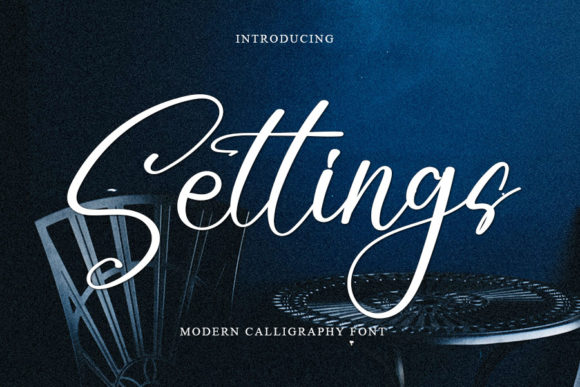
Unlock the Enchanting Embrace of Settings Font: Your Gateway to Refined Elegance in Design!
Prepare to be captivated by the allure of Settings, an exquisite script font meticulously crafted to evoke a symphony of grace and sophistication. As a connoisseur of typographic artistry, we understand the profound impact that fonts can have on your creative endeavors.
With Settings, we present you with an unparalleled masterpiece, a font that effortlessly weaves its charm into every letterform, exuding an aura of timeless elegance. Its graceful curves and delicate flourishes dance before your eyes, promising to elevate your designs to new heights of refinement and allure.
Imagine your logos adorned with the captivating allure of Settings, instantly commanding attention and etching an unforgettable impression upon the minds of your audience. Its versatility extends to branding, where it effortlessly elevates your corporate identity, imbuing it with a touch of sophistication that sets you apart from the ordinary.
For those seeking to craft invitations and stationery that radiate an air of timeless grace, Settings is your muse. Its presence on wedding invitations will transform them into cherished keepsakes, capturing the essence of love and romance with unparalleled elegance.
But Settings' enchantment extends far beyond the realm of traditional print. In the vibrant arena of social media, it emerges as a radiant star, adding a touch of sophistication to your posts and captivating your followers with its undeniable charm.
With Settings, the possibilities are boundless. Its PUA encoding grants you effortless access to a treasure trove of glyphs and ligatures, empowering you to unleash your creativity and craft designs that shimmer with originality.
Immerse yourself in the enchanting embrace of Settings, where elegance and refinement converge to elevate your artistic vision. Let its captivating curves and delicate flourishes adorn your creations, transforming them into masterpieces that leave an enduring legacy of beauty and inspiration.